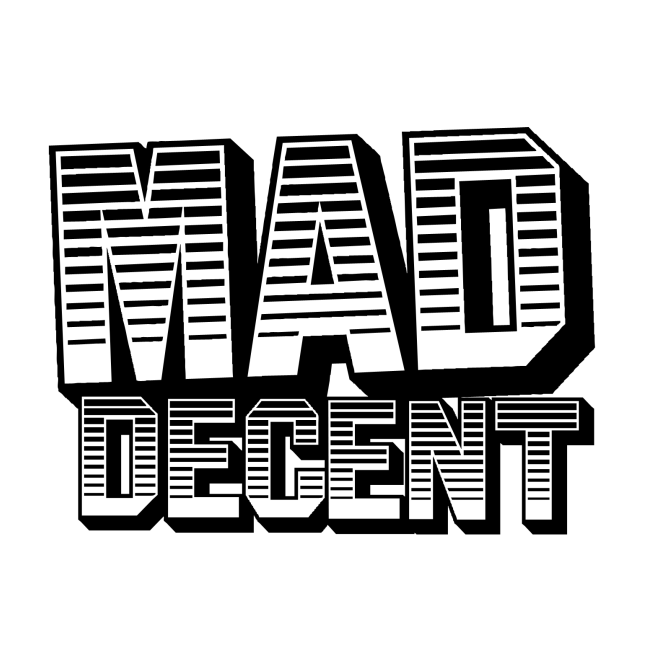
Mad Decent Font
EntertainmentMad Decent is a Philadelphia-based independent record label founded by DJ and producer Diplo, focused on releasing music in genres such as dancehall, reggaeton, and moombahton. The label has helped launch the careers of several well-known artists, including Major Lazer and Rusko.
The logo of the record label features a font that is similar to Jim Dandy 2D. Jim Dandy, a display typeface created by Harold Lohner, is based on the 19th-century font Jim Crow.